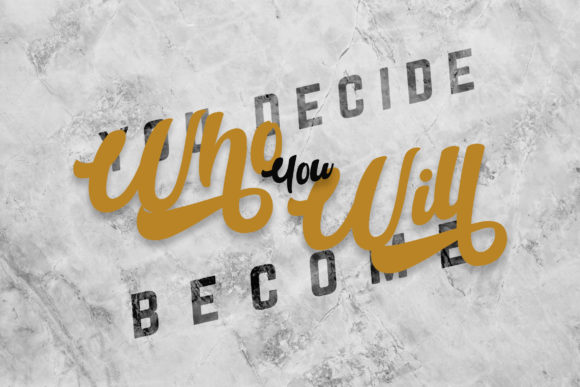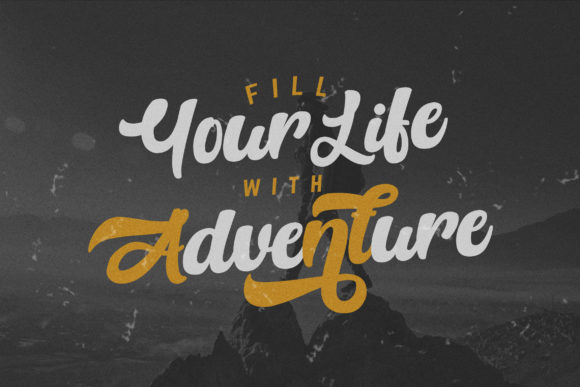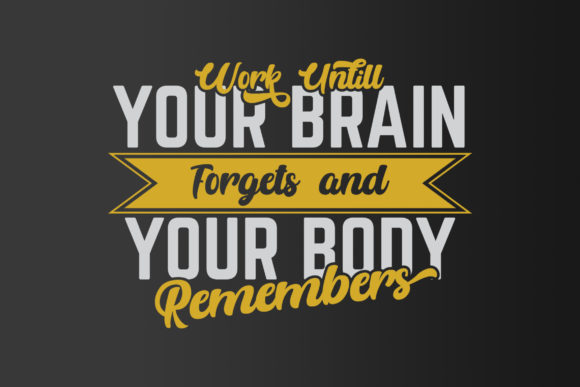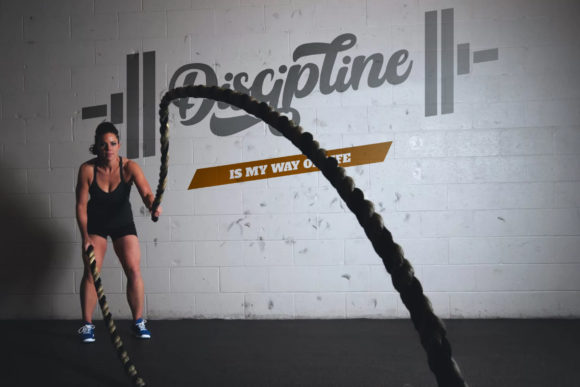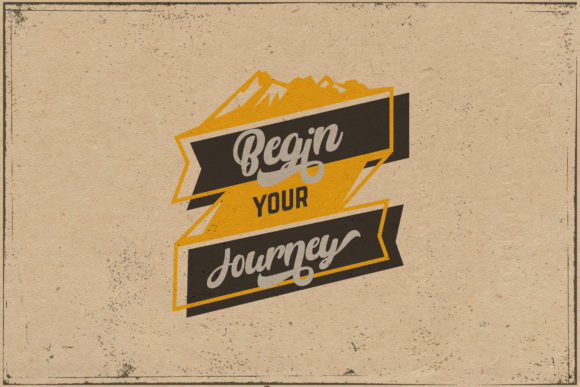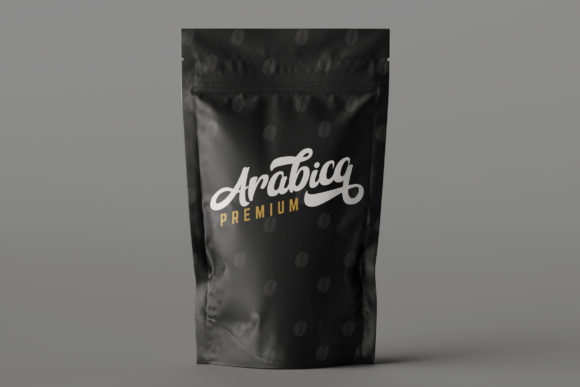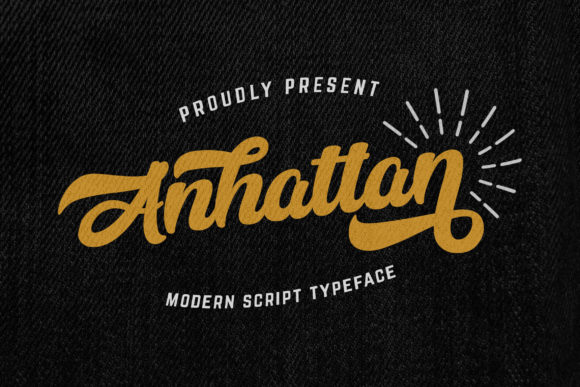
Anhattan Font: A Nostalgic Retro Script with a Fun Feel
Anhattan is a unique and captivating font that embodies the essence of nostalgia and retro charm. With its fun and playful feel, this font is perfect for designers and crafters looking to add a touch of vintage aesthetic to their projects. In this article, we’ll dive into the world of Anhattan Font, exploring its features, uses, and the inspiration behind its creation.
The Story Behind Anhattan Font
Anhattan Font is a carefully crafted script that draws inspiration from the classic typography of the past. Its creators aimed to evoke a sense of nostalgia and playfulness, reminiscent of the iconic signage and advertisements from bygone eras. The result is a font that exudes a fun and carefree vibe, perfect for projects that require a dash of personality and whimsy.
Key Features of Anhattan Font
• Unique Letterforms: Anhattan Font boasts distinctive letterforms that are both elegant and playful. Each character is carefully designed to contribute to the overall retro feel of the font.
• Variations and Ligatures: The font comes with a range of variations and ligatures, allowing designers to add texture and depth to their work.
• High Versatility: Anhattan Font is highly versatile, making it suitable for a wide range of applications, from branding and advertising to packaging and digital media.
Using Anhattan Font in Design Projects
Anhattan Font is an excellent choice for designers looking to add a touch of nostalgia and playfulness to their projects. Here are some ideas for using this font:
• Branding and Logos: Anhattan Font is perfect for creating unique and memorable logos that stand out from the crowd.
• Advertising and Marketing: The font’s retro aesthetic makes it an excellent choice for advertising and marketing materials, such as posters, flyers, and social media graphics.
• Packaging and Product Design: Anhattan Font can add a touch of personality to product packaging, making it more eye-catching and engaging.
• Digital Media: The font is also suitable for digital media, including video titles, animations, and web graphics.
Tips for Getting the Most Out of Anhattan Font
To make the most of Anhattan Font, here are some tips to keep in mind:
• Experiment with Colors: The font’s retro aesthetic pairs well with bold and bright colors. Experiment with different color schemes to find the perfect combination for your project.
• Play with Texture: Anhattan Font looks great with texture and patterns. Try adding subtle textures or backgrounds to give your design depth and interest.
• Mix and Match: Don’t be afraid to mix and match Anhattan Font with other fonts to create a unique and visually appealing combination.
Inspiration from the Past
Anhattan Font draws inspiration from the iconic signage, advertisements, and typography of the past. Here are some examples of retro design elements that may have influenced the creation of this font:
• Vintage Signage: Classic storefront signs, neon lights, and hand-painted signs from the mid-20th century.
• Retro Advertising: Vintage advertisements from the 1950s and 1960s, featuring bold typography and colorful graphics.
• Classic Typography: Timeless typography from the past, including serif and script fonts with elegant lines and curves.
Anhattan Font is a unique and captivating script that embodies the essence of nostalgia and retro charm. With its fun and playful feel, this font is perfect for designers and crafters looking to add a touch of vintage aesthetic to their projects. Whether you’re working on branding, advertising, packaging, or digital media, Anhattan Font is an excellent choice for adding personality and whimsy to your design.